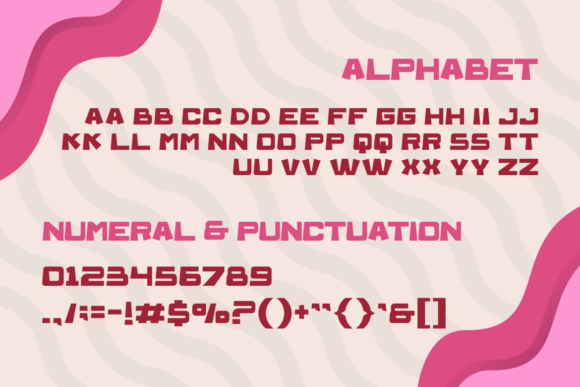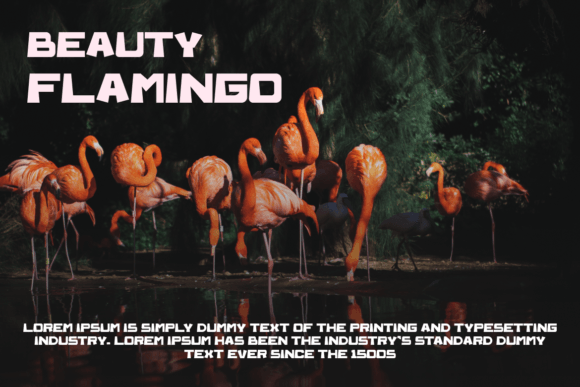
Introducing Blunker Font: The Ultimate Display Font for Modern Designs
Are you tired of using the same old fonts for your designs? Look no further! Blunker Font is here to revolutionize the way you create stunning visuals. This cool and modern display font is taking the design world by storm, and for good reason. Its distinct and well-balanced letters make it a masterpiece that will leave you and your audience in awe.
The Versatility of Blunker Font
One of the standout features of Blunker Font is its incredibly versatile style. Whether you’re a designer, craftsperson, or simply a DIY enthusiast, this font can be used to create spectacular designs that cater to various tastes and preferences. From bold and edgy to elegant and sophisticated, Blunker Font can adapt to any style or theme, making it an excellent addition to your font collection.
What Makes Blunker Font So Special?
So, what sets Blunker Font apart from other display fonts? Here are a few reasons why designers and crafters are falling in love with this font:
• Unique Letterforms: Blunker Font boasts distinct and well-balanced letters that are both visually appealing and highly legible. Each letter has been carefully crafted to ensure that your designs stand out from the crowd.
• Modern Aesthetic: This font exudes a modern and cool vibe that’s perfect for designs that require a fresh and contemporary look. Whether you’re working on a branding project, poster, or social media graphic, Blunker Font will give your design a sleek and sophisticated edge.
• Highly Versatile: As mentioned earlier, Blunker Font is incredibly versatile and can be used for a wide range of design projects. Its flexibility makes it an excellent choice for designers who need a font that can adapt to different styles and themes.
How to Use Blunker Font in Your Designs
Now that you’re excited about Blunker Font, let’s explore some ways to incorporate it into your designs:
• Headings and Titles: Use Blunker Font to create stunning headings and titles that grab attention. Its bold and modern aesthetic makes it perfect for highlighting important information or creating visual interest.
• Branding and Logos: Create a lasting impression with Blunker Font by using it for your brand’s logo or marketing materials. Its unique letterforms will help your brand stand out and establish a strong visual identity.
• Posters and Flyers: Add a touch of modern elegance to your posters and flyers with Blunker Font. Its high legibility ensures that your message gets across clearly, even at larger font sizes.
Tips for Getting the Most Out of Blunker Font
To maximize the potential of Blunker Font, here are some expert tips:
• Experiment with Font Sizes: Blunker Font looks great at various font sizes, so don’t be afraid to experiment and find the perfect size for your design.
• Pair it with Other Fonts: Combine Blunker Font with other fonts to create a unique and visually appealing contrast. This will add depth and interest to your design.
• Play with Colors: Blunker Font comes in a range of colors, so try experimenting with different hues to find the perfect match for your design.
In conclusion, Blunker Font is a game-changing display font that’s perfect for designers and crafters looking to elevate their designs. Its unique letterforms, modern aesthetic, and versatility make it an excellent addition to any font collection. With its high legibility and stunning visuals, Blunker Font is sure to become your go-to font for creating spectacular designs. So why wait? Fall in love with Blunker Font and take your designs to the next level!